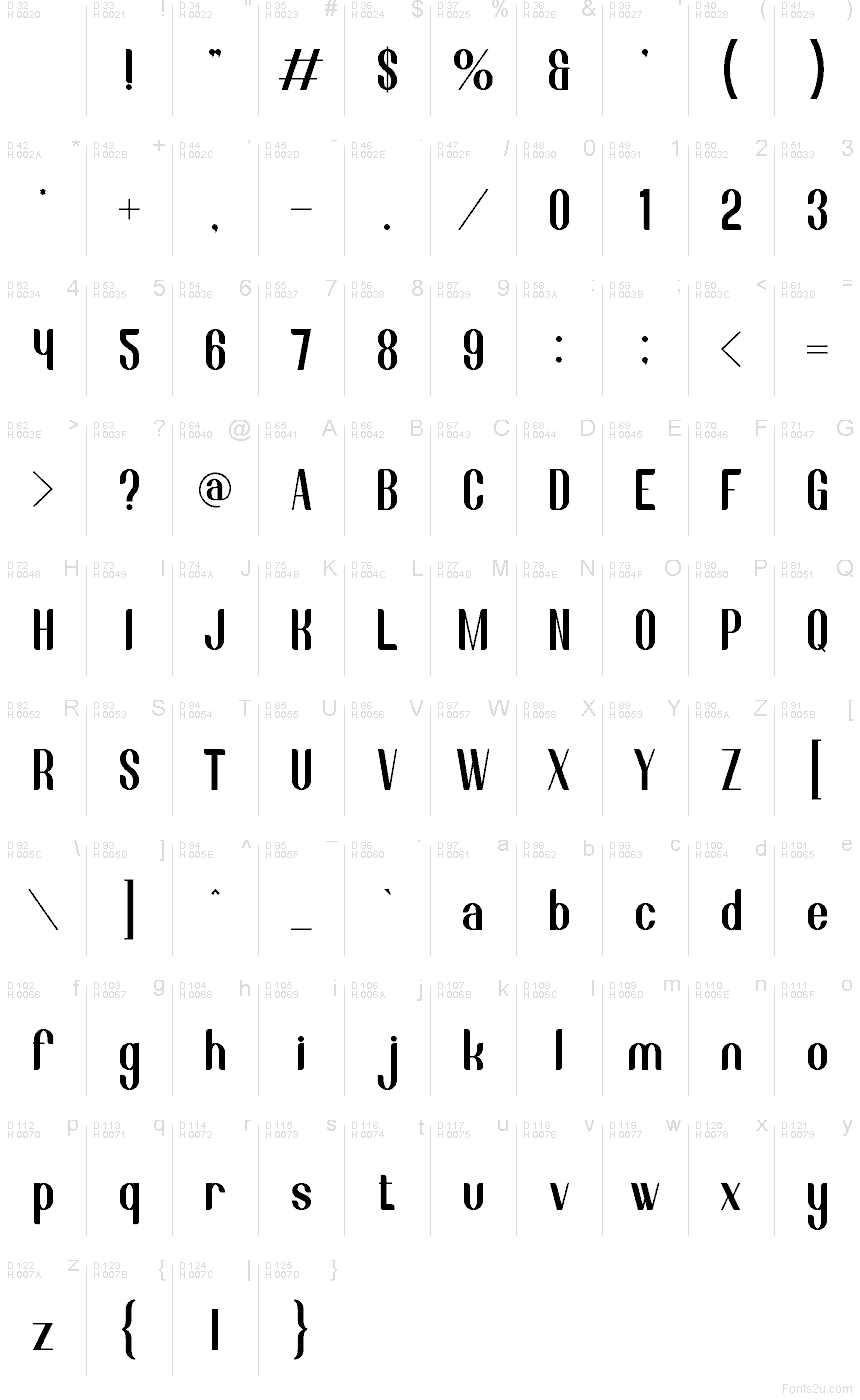
Xerion font by ErmediaStudio is a free retro display typeface that feels like a sleek poster pulled from a 70s sci‑fi cinema. Its tall, inky forms combine sharp internal cuts with smooth, rounded curves, giving each letter a sculpted, almost liquid silhouette. The rhythm between heavy verticals and open, airy bowls creates a bold word shape that still reads cleanly at a glance.
Using Xerion, headlines instantly pick up a cinematic, slightly mysterious edge that stands out in noisy layouts. This free font works beautifully for posters, logos, album covers, packaging, book titles, and bold social graphics where you want a touch of futuristic nostalgia. For longer supporting text, pair Xerion with a simple geometric sans set smaller to let its distinctive shapes stay in the spotlight.